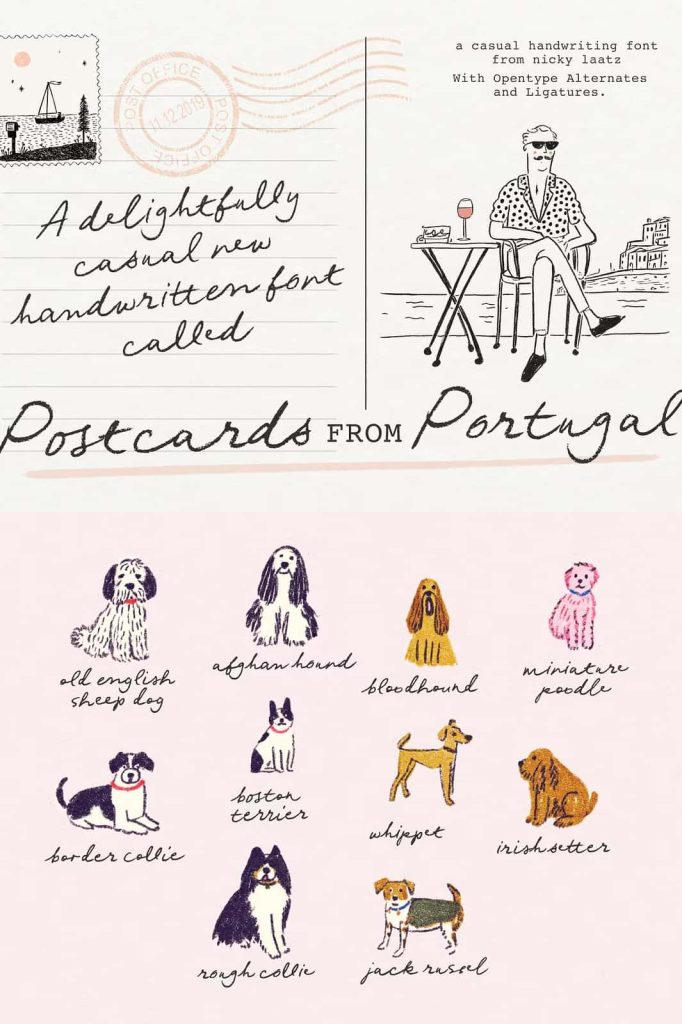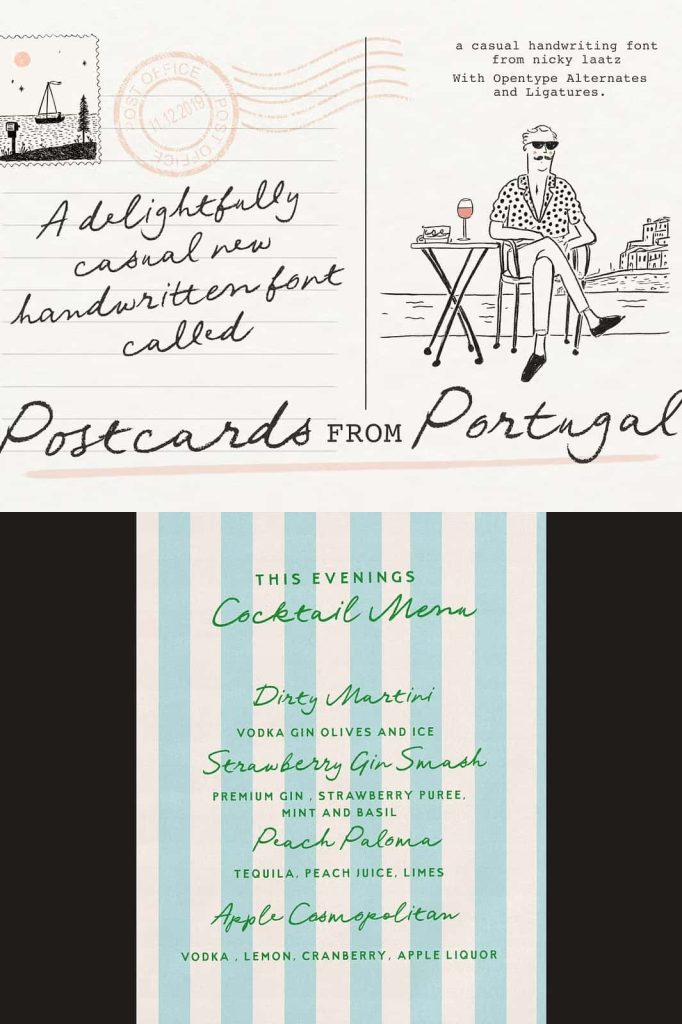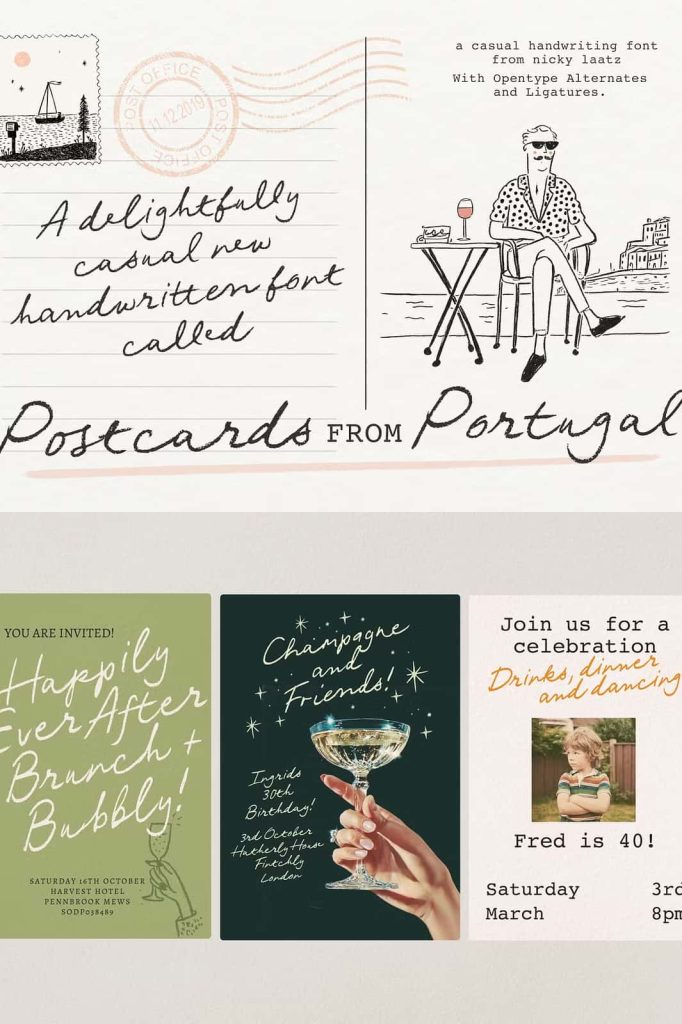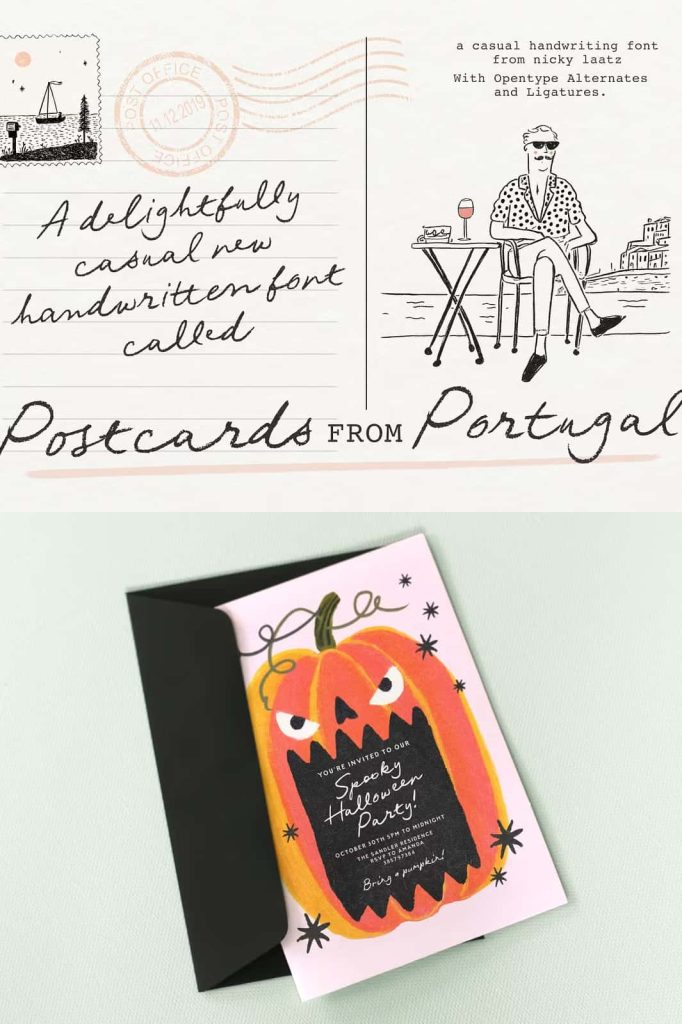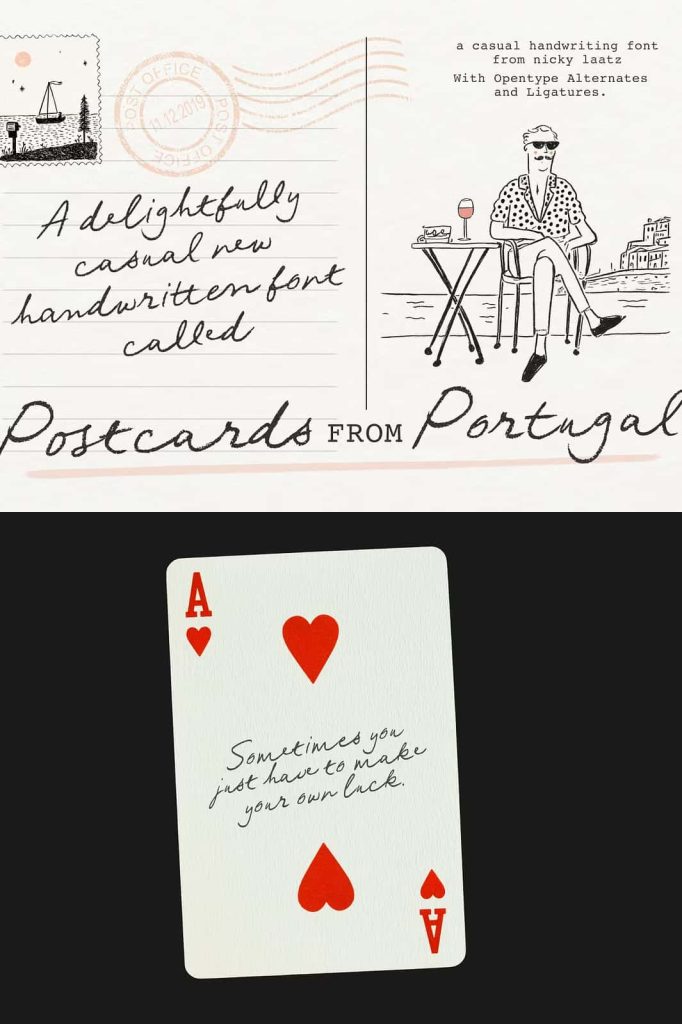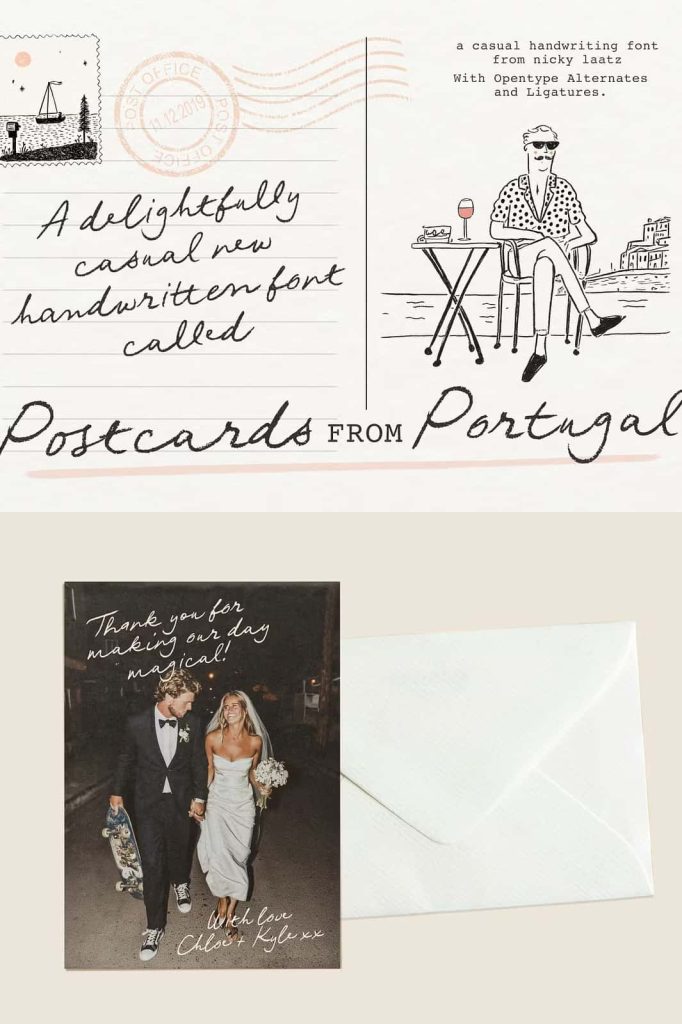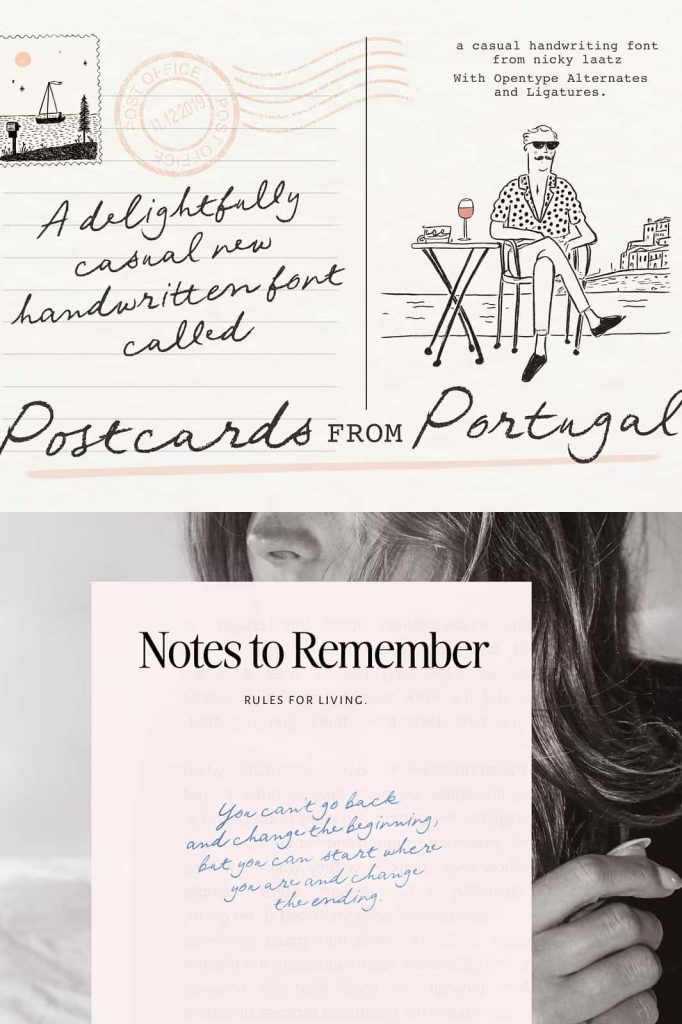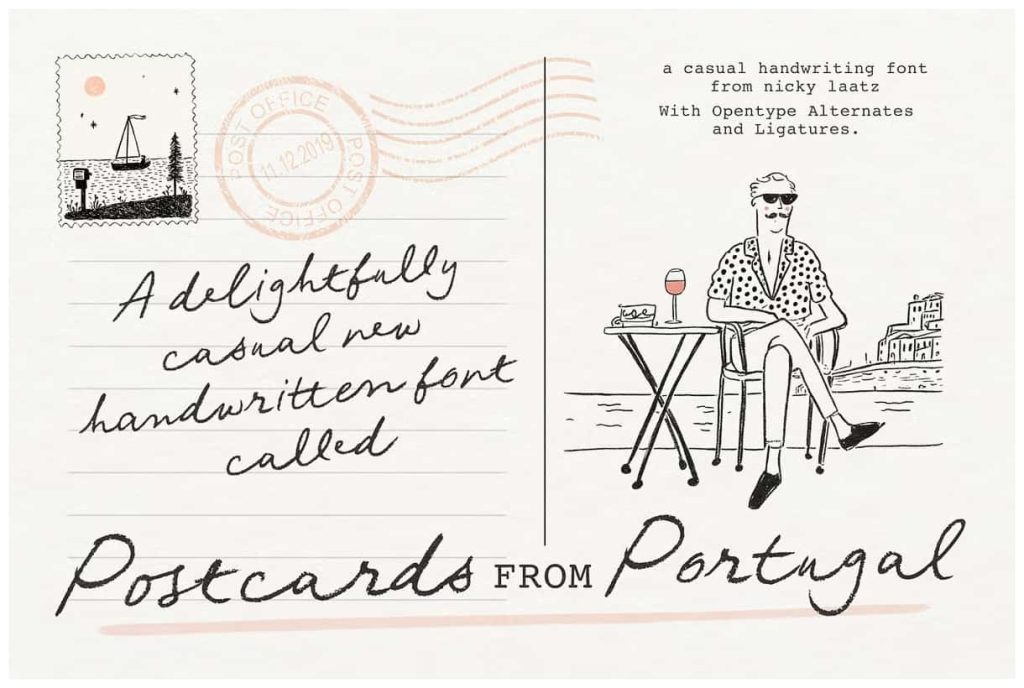
Postcards From Portugal
Say hello to Postcards From Portugal! A light-hearted, rough-edged little penned script, inspired by travel, sun-drenched coastlines, and handwritten memories, this font adds a personal, breezy touch to everything from brand visuals to stationery